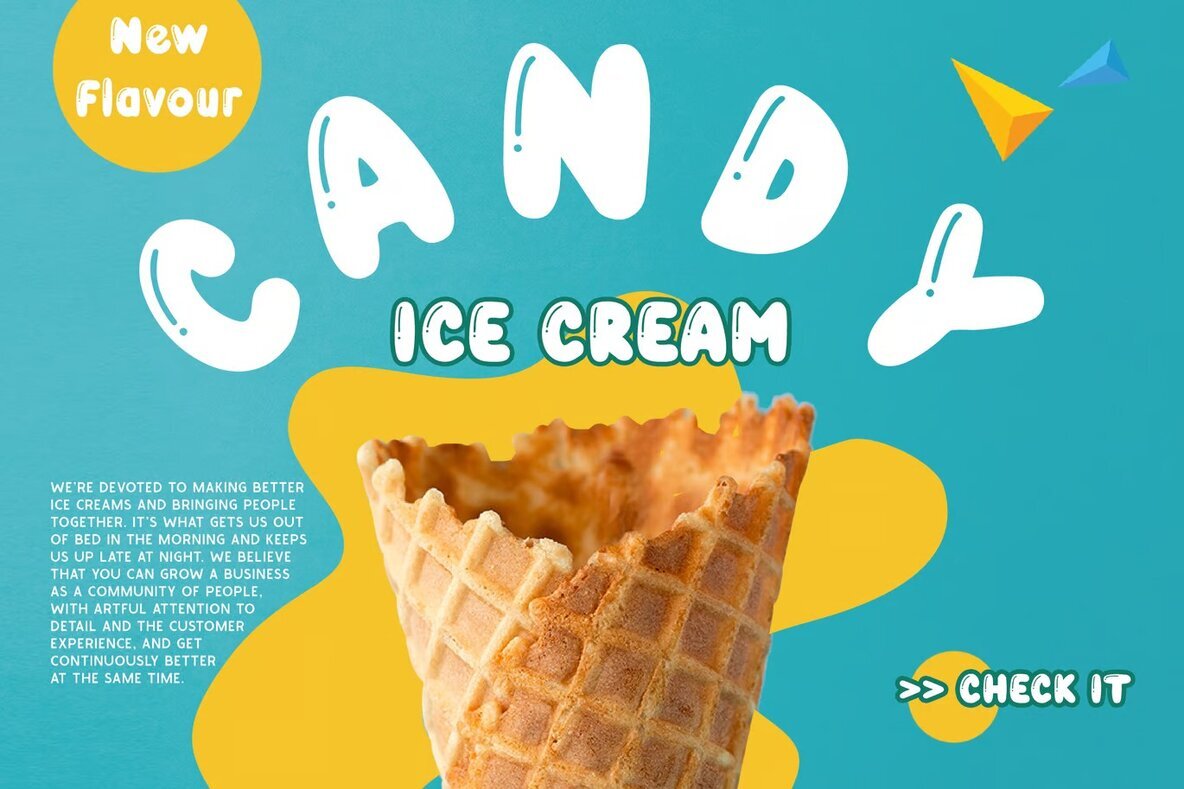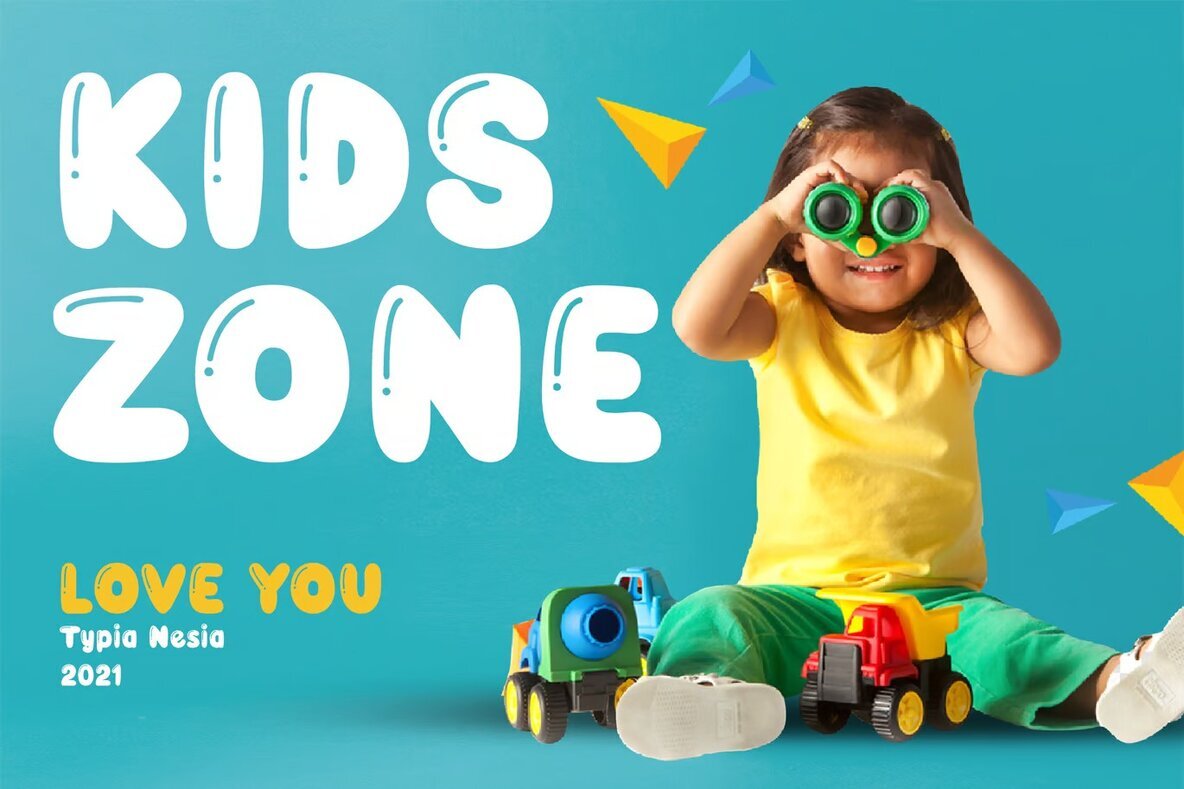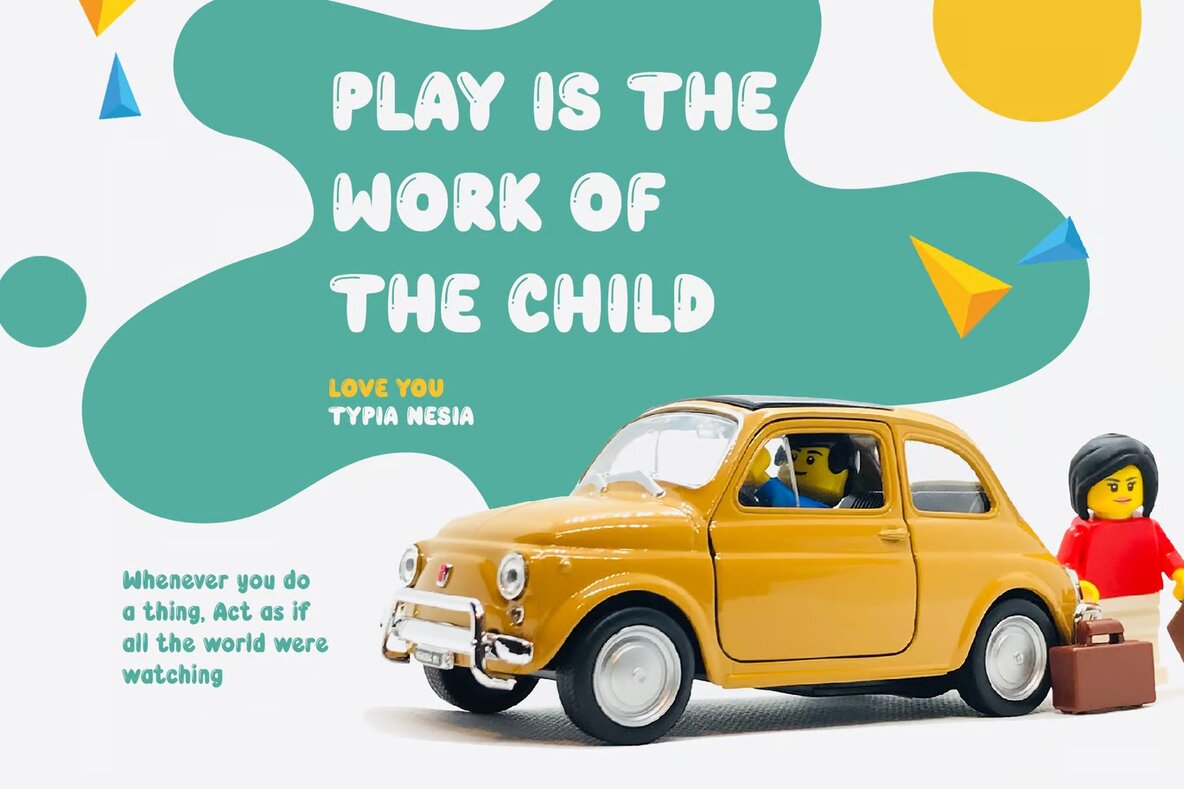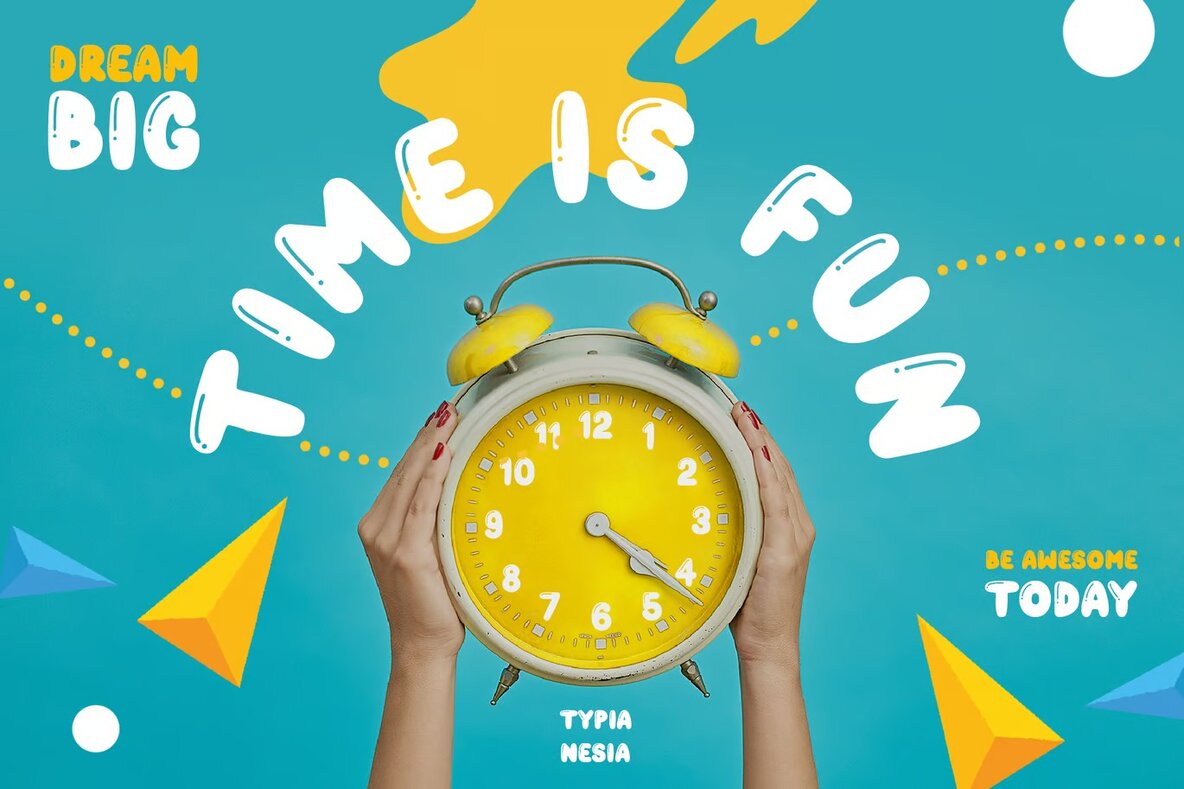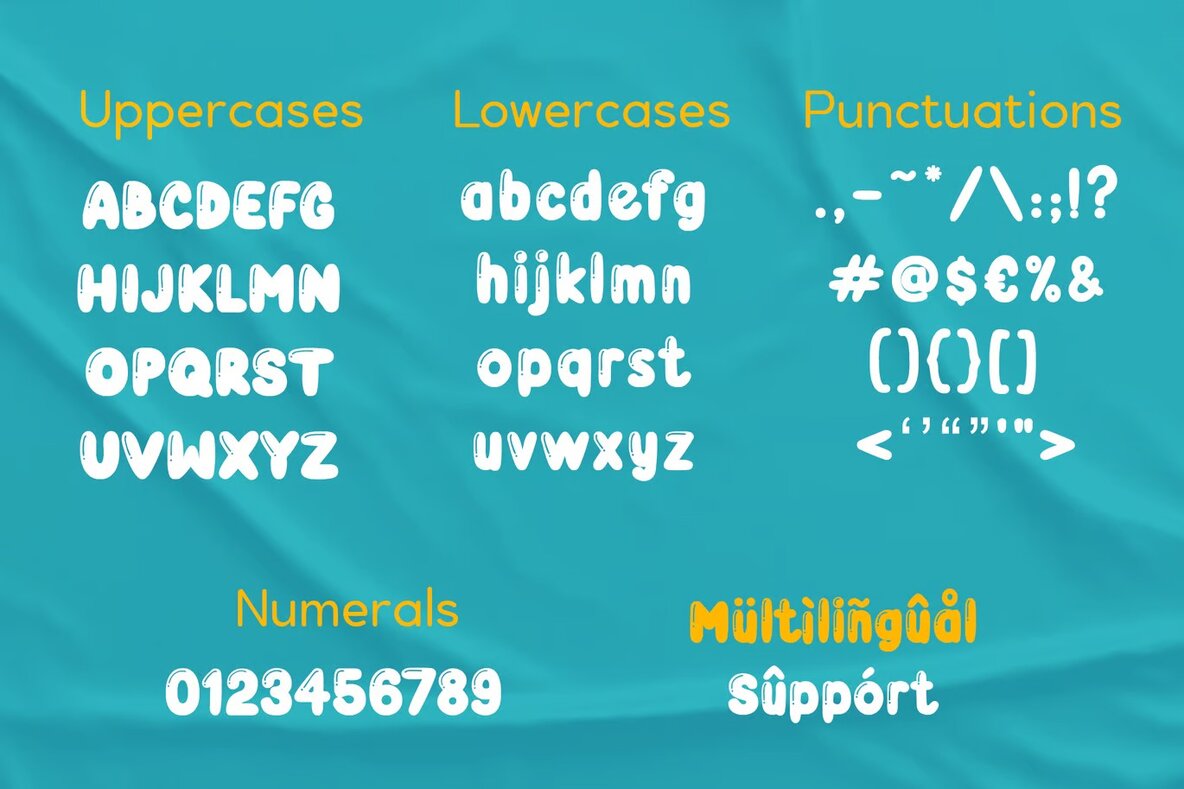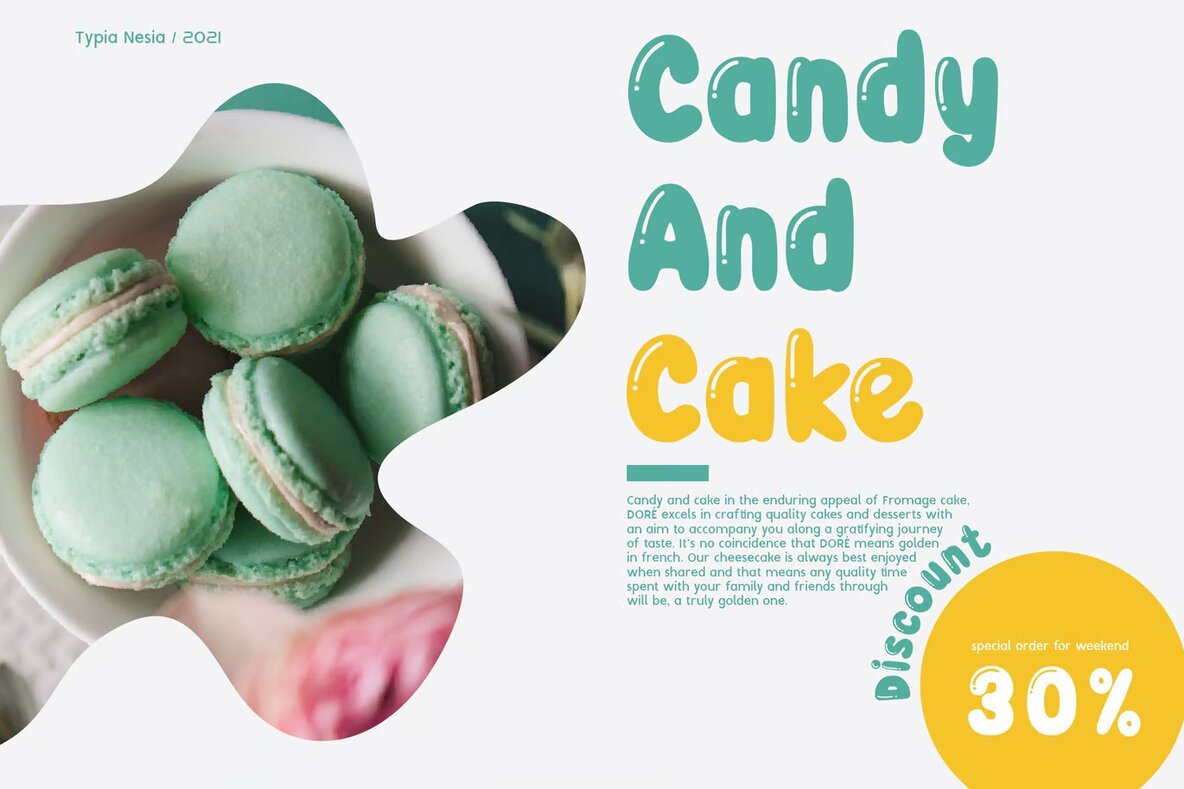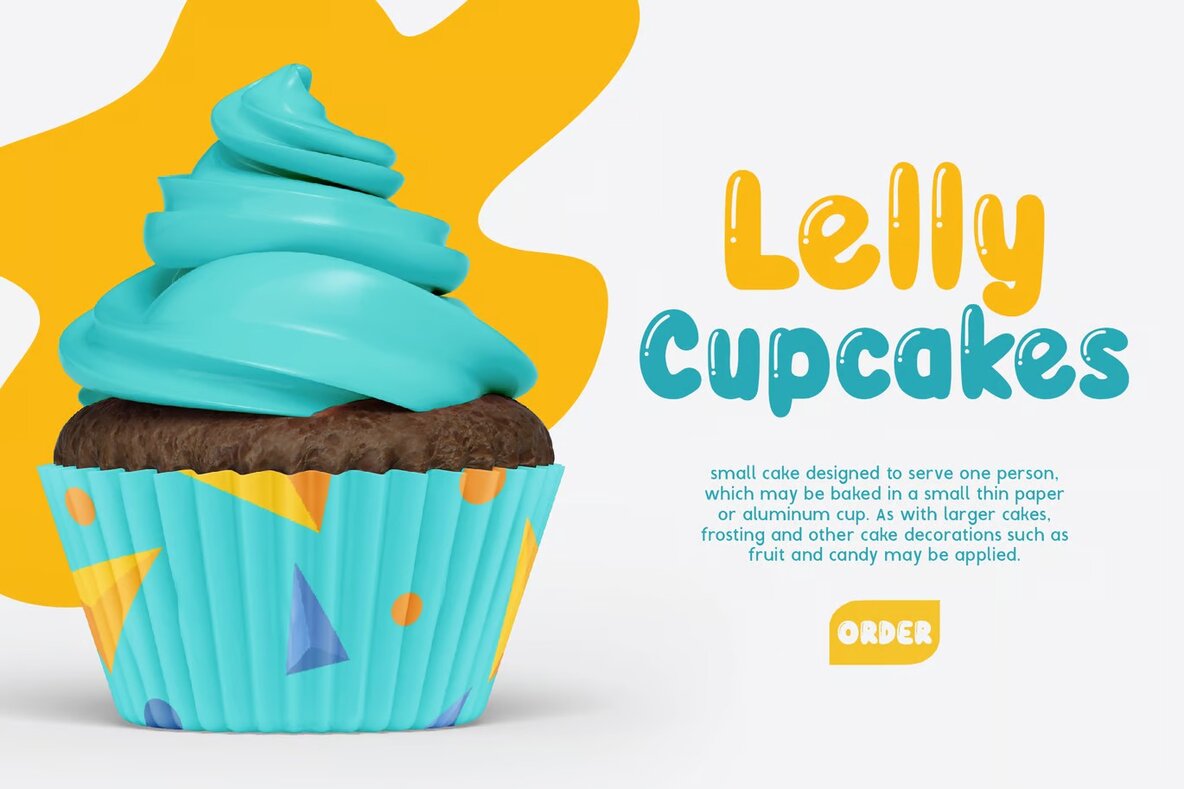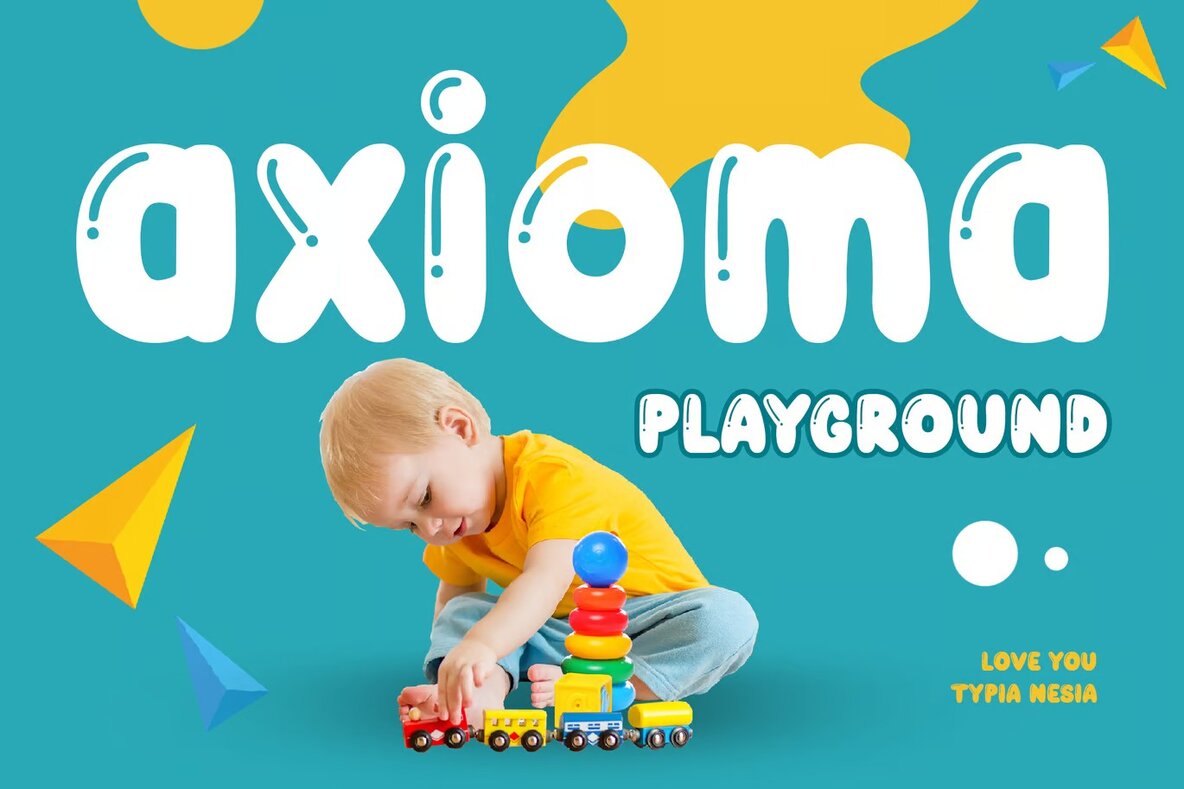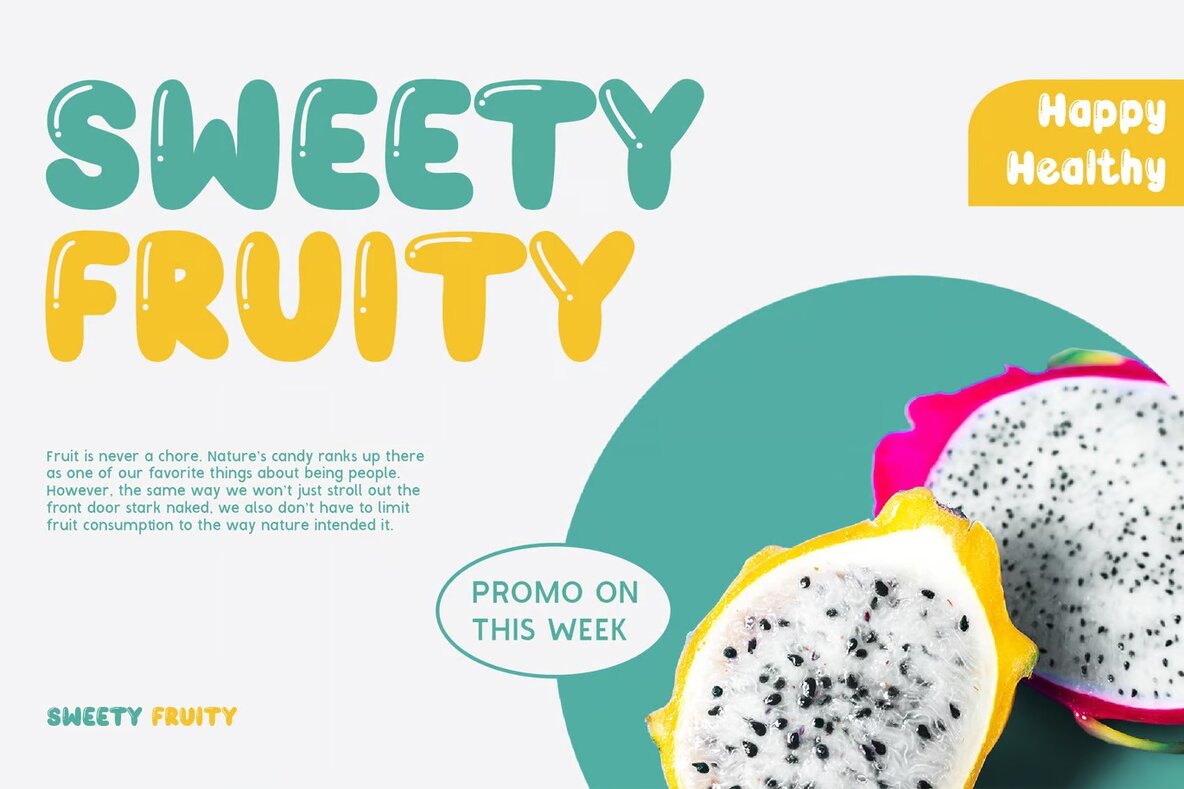
Love You Font
Love You
Introducing a playful and whimsical typeface perfect for adding a touch of fun to your projects. This balloon-style font is designed for a variety of applications, including kid-centric designs like games, snack packaging, and kindergarten branding. It's also an ideal choice for food and beverage packaging, birthday party decorations, and captivating cartoon or animation themes. With its charming and endearing appearance, it’s suitable for children's books, toy branding, and more.
This versatile font seamlessly fits into modern advertising designs or poster quotes, and it enhances book covers and website content with a lighthearted flair. Perfect for card designs or any hand-lettered projects, it brings joy and creativity to your work. Its unique style captures the spirit of youthful exuberance, making it a great choice for anyone looking to infuse their design with a playful and cute aesthetic.